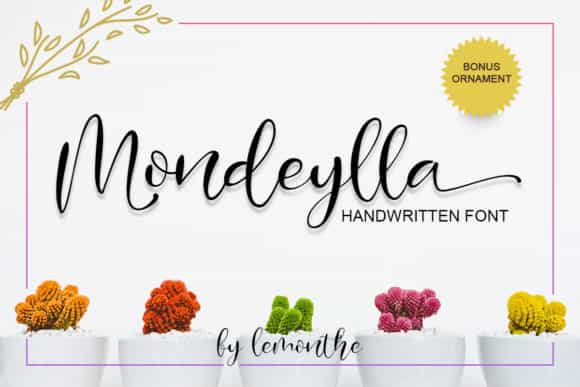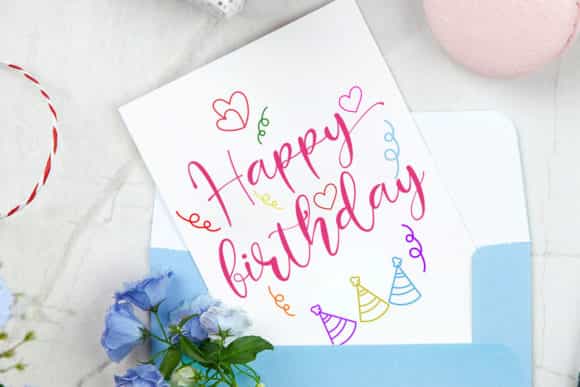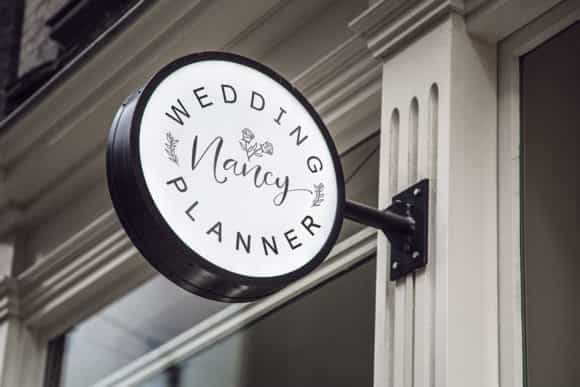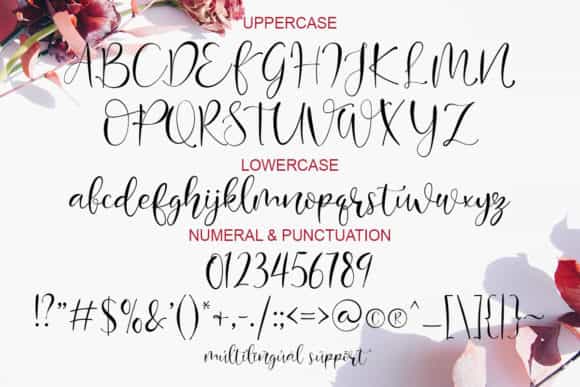
Mondeylla is the spectacular calligraphy typeface that is best suitable for luxury brands. It is beautiful and elegant with swashes The inherent pull of the script font was enough to convince me to try out this font. It has multiple applications. For example, the title, signature logo weddings invitations letter heads, signs, labels Newsletters, posters, badges, etc.